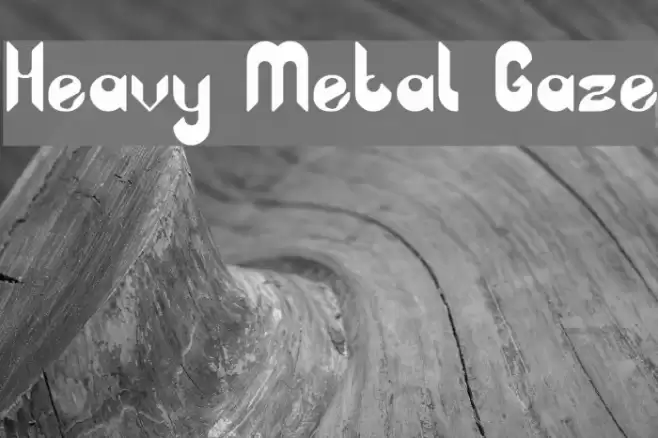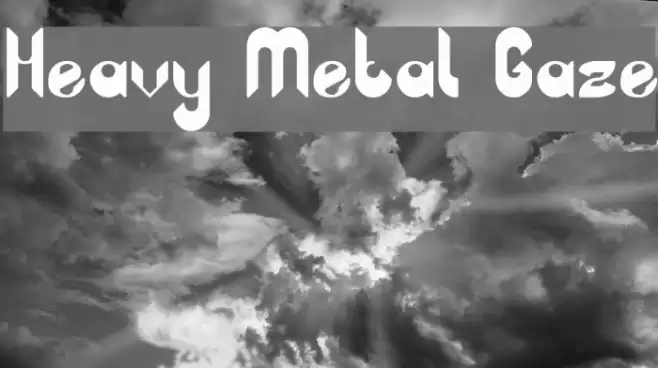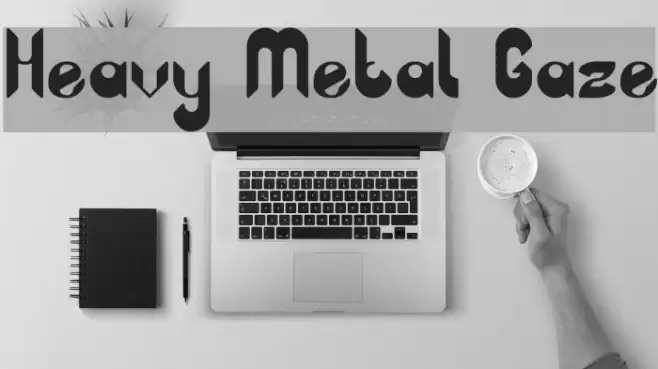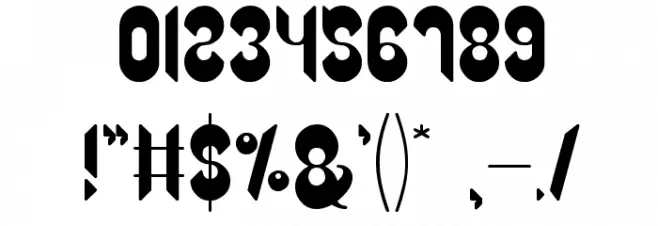
Heavy Metal Gaze Font
Heavy Metal Gaze Description
This font features a bold and striking design with a heavy metal aesthetic. The characters are thick and robust, with sharp angles and unique cutouts that give them a distinctive, edgy appearance. The uppercase letters are particularly bold, while the lowercase letters maintain the same weight but with a slightly more rounded form. Numbers and special characters follow the same design principles, ensuring consistency across all glyphs. The font's style is reminiscent of rock and metal band logos, making it ideal for projects that require a strong, impactful visual presence.
A bold, edgy font with a heavy metal aesthetic and sharp, angular design from Uncategorized fonts.
- Proposed Projects: Ideal for music album covers, band logos, posters, and any project needing a bold, impactful look.